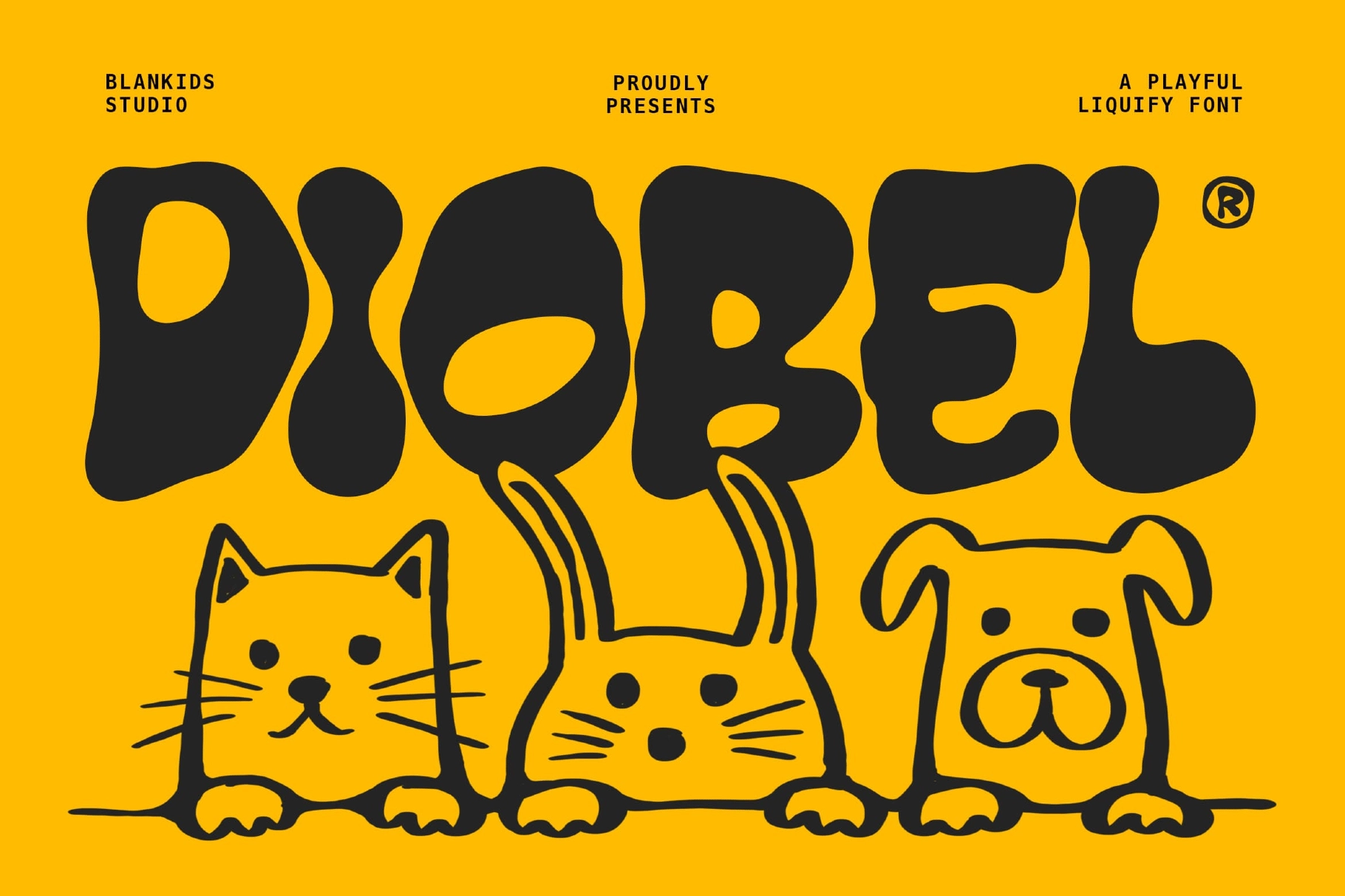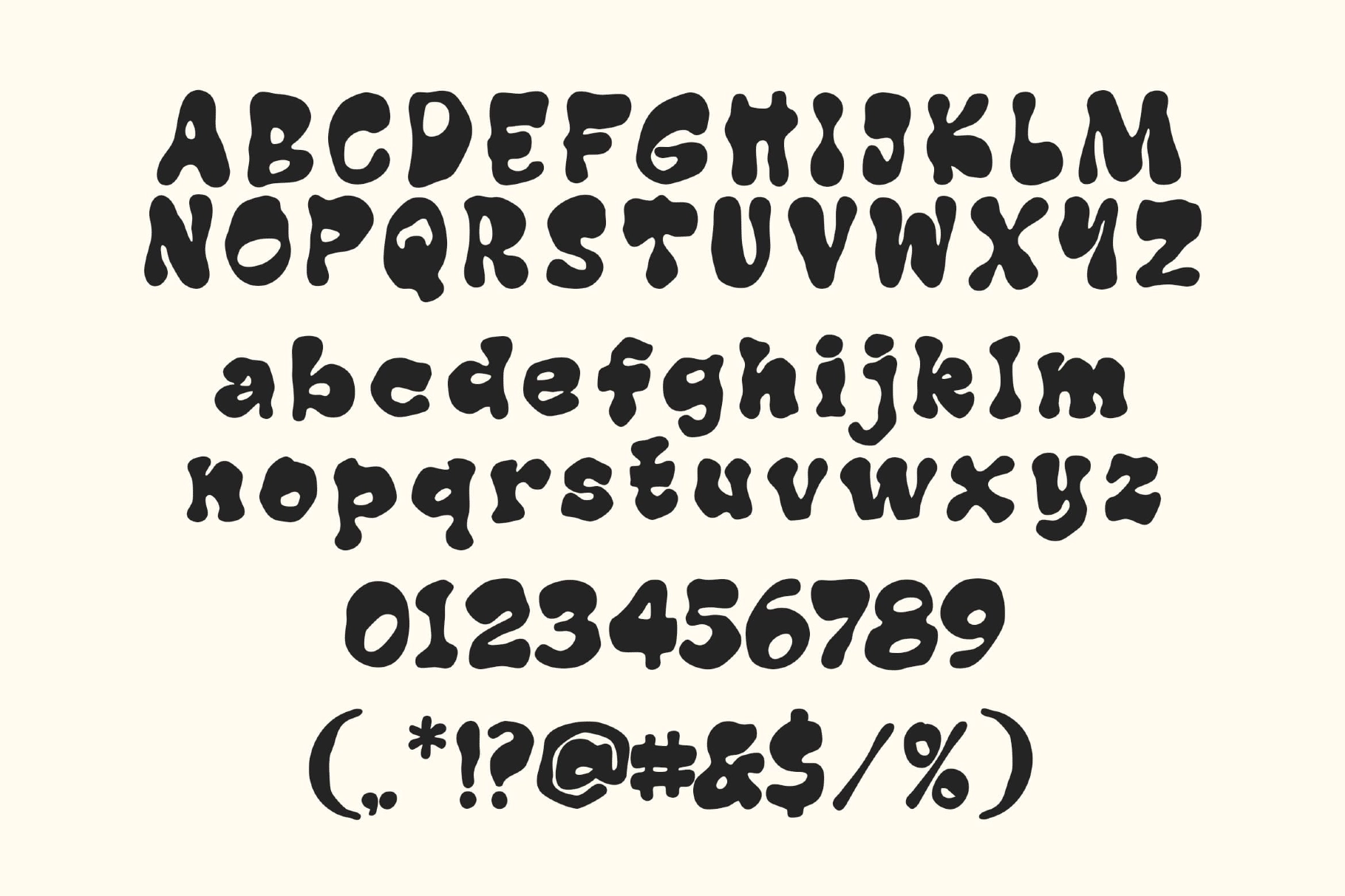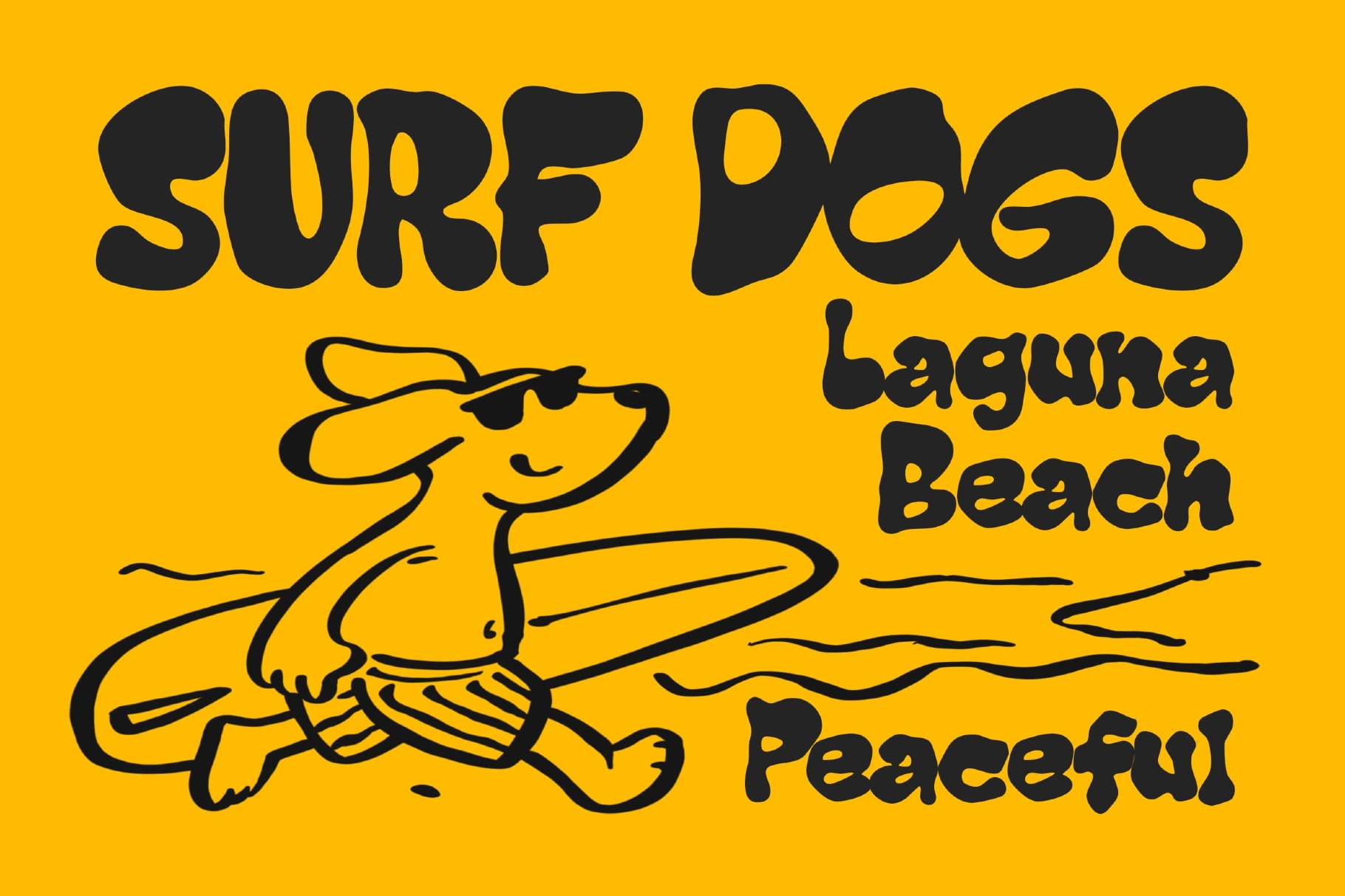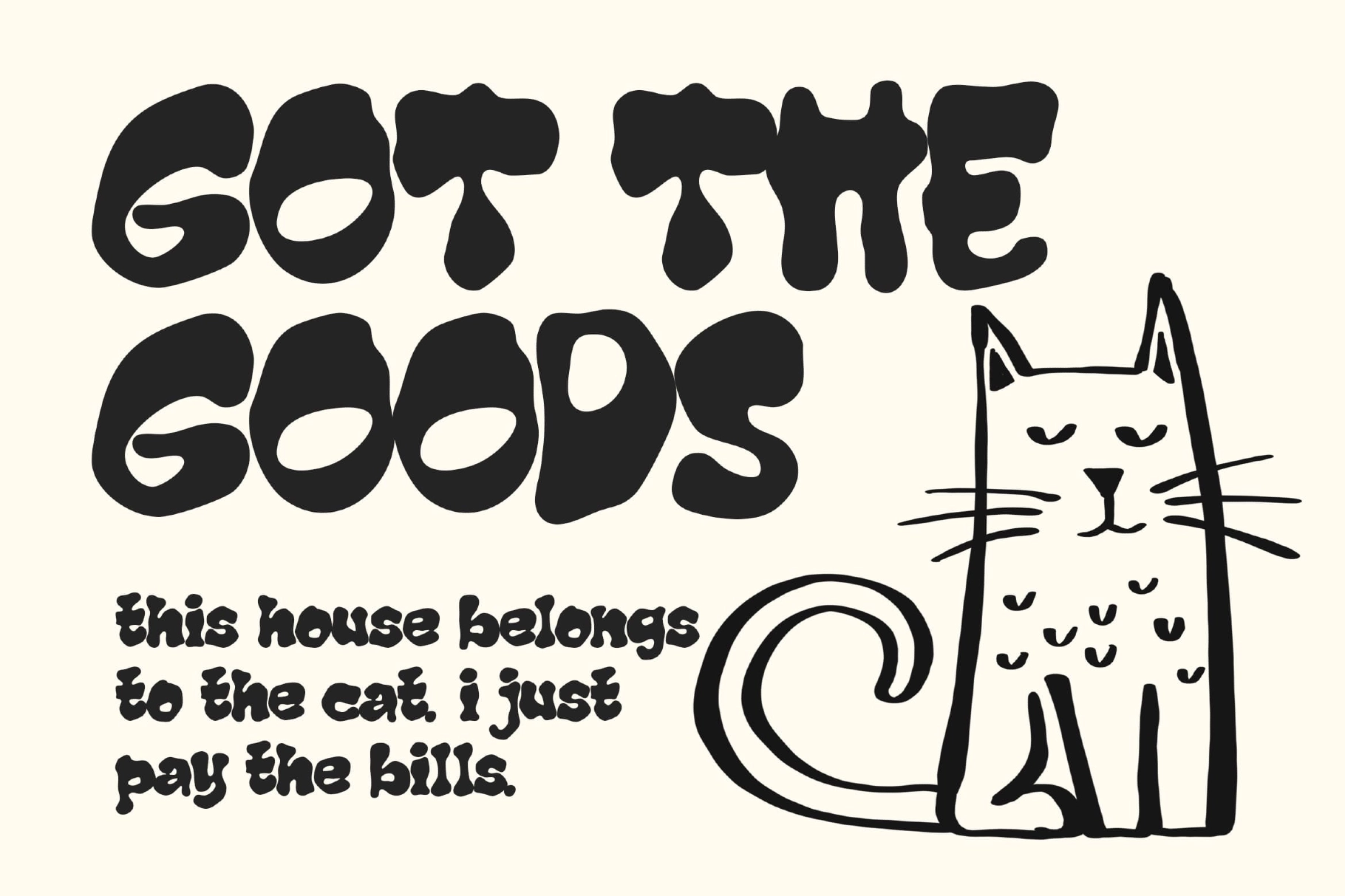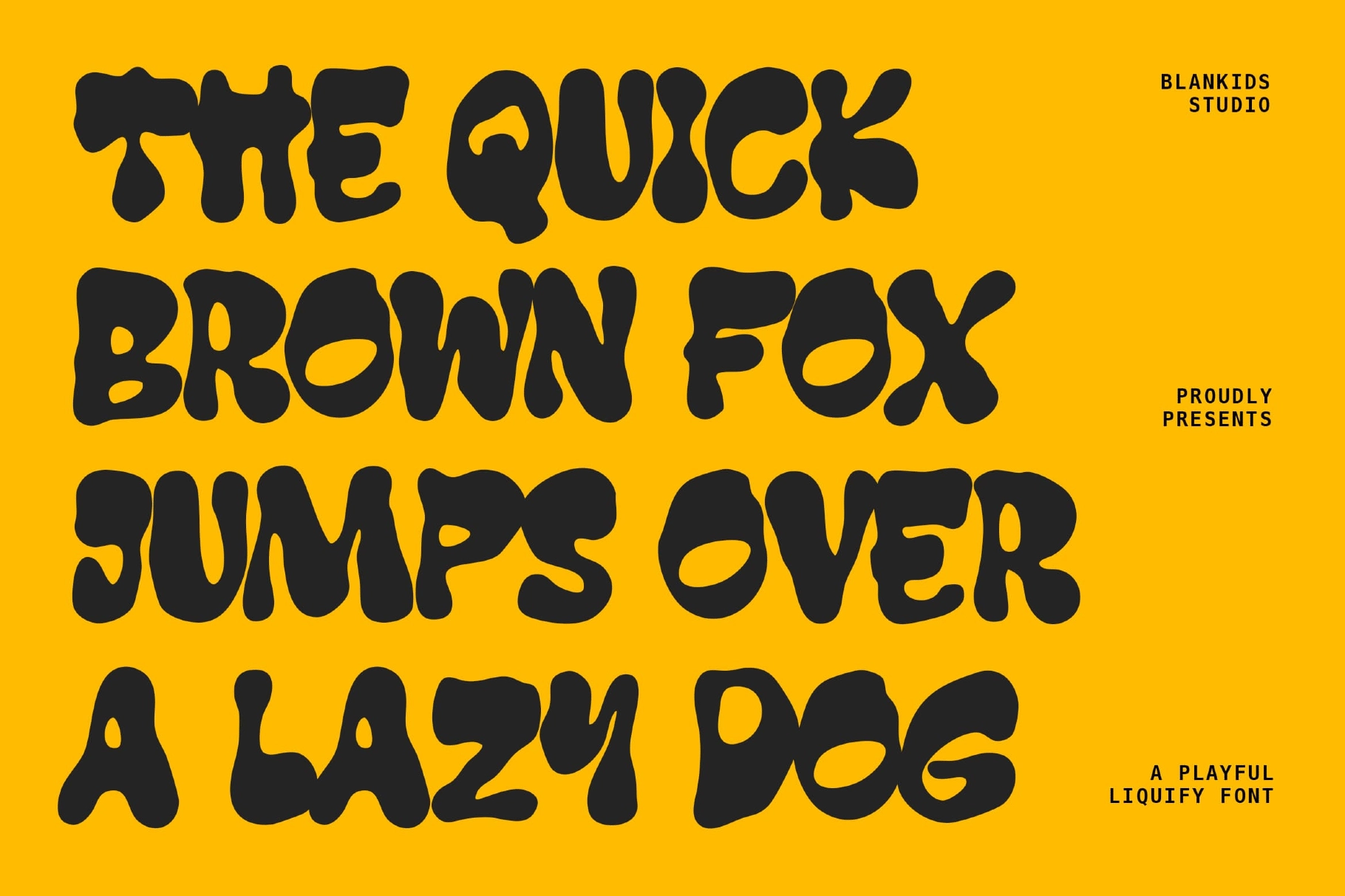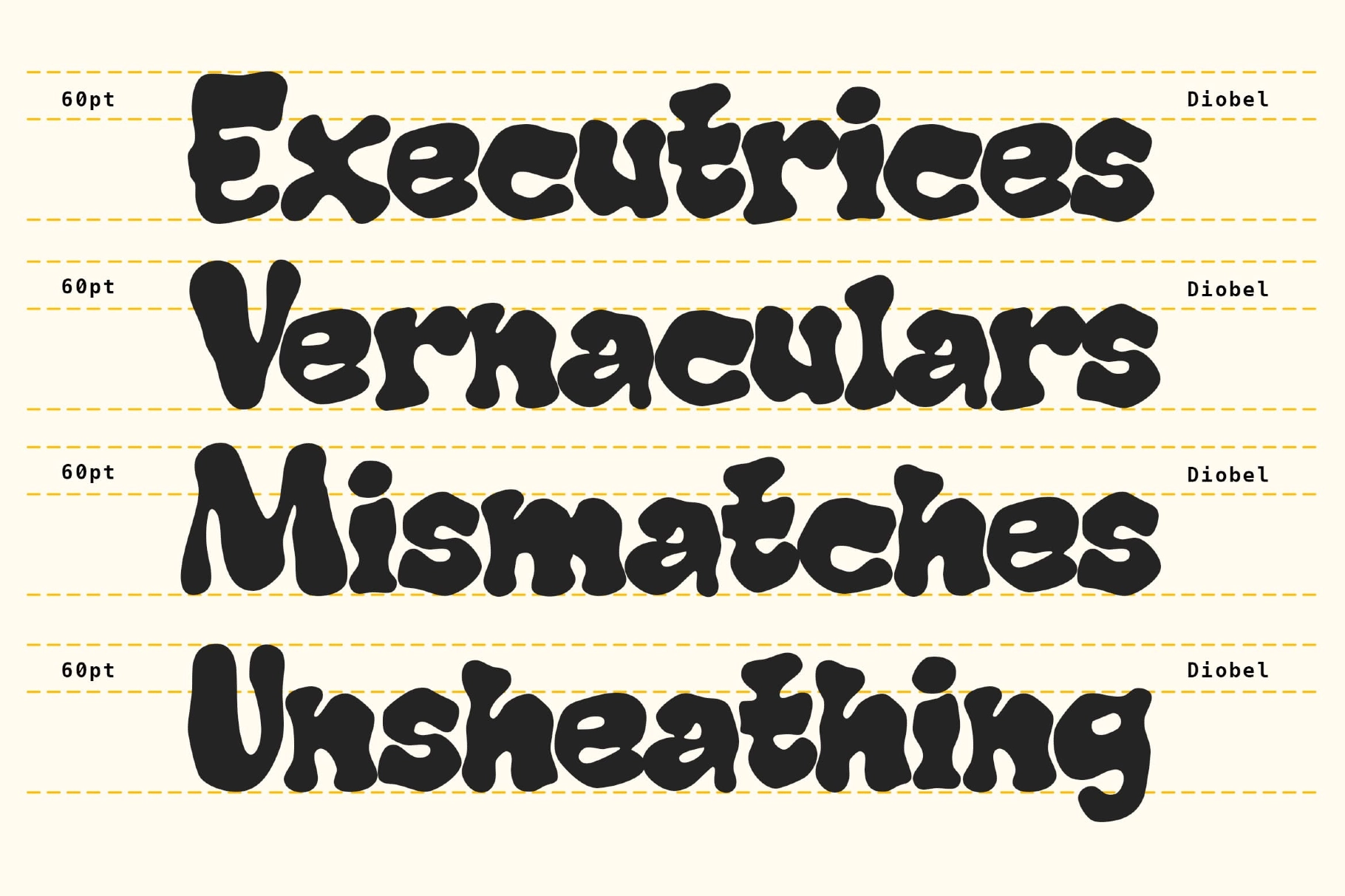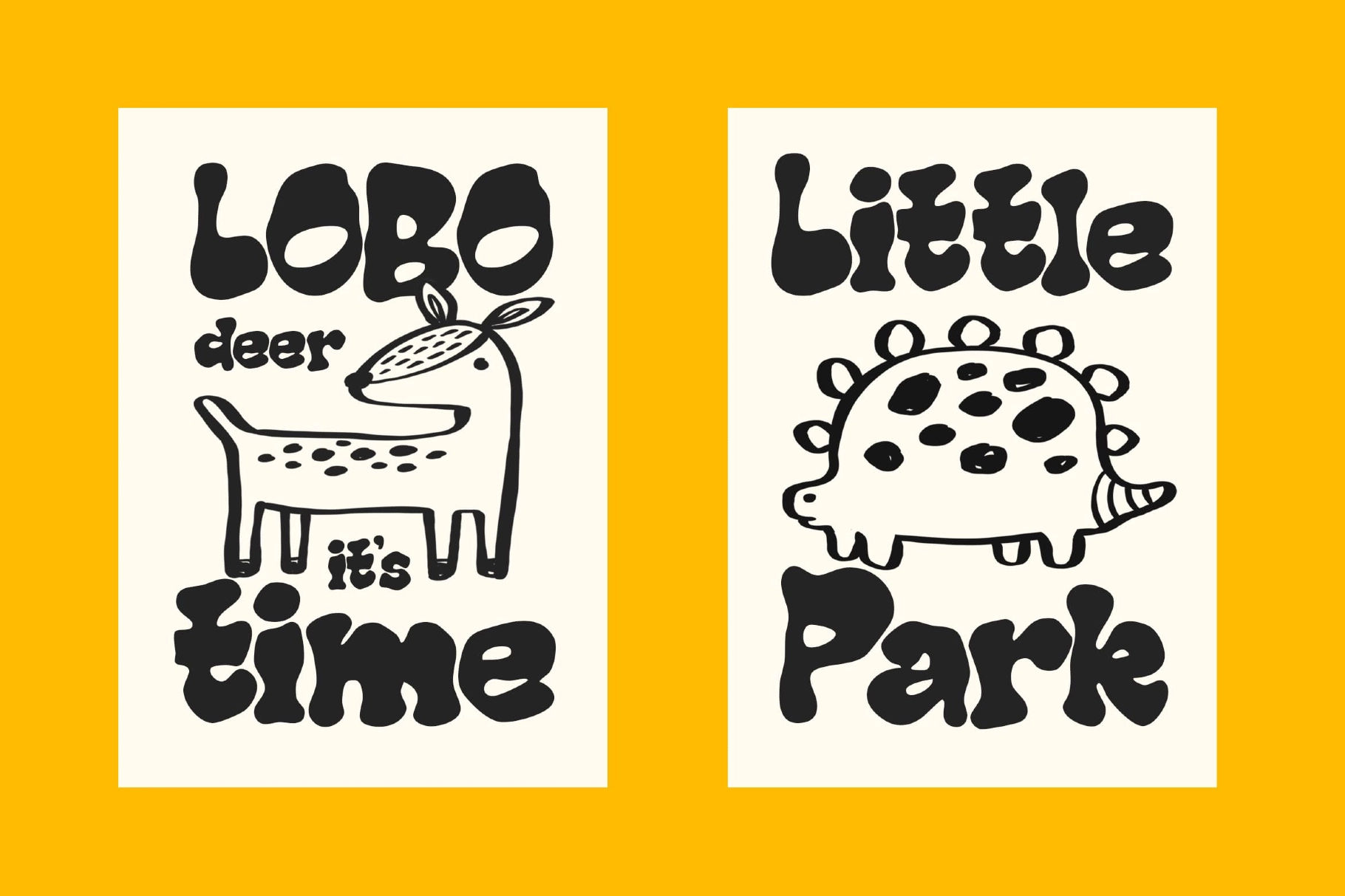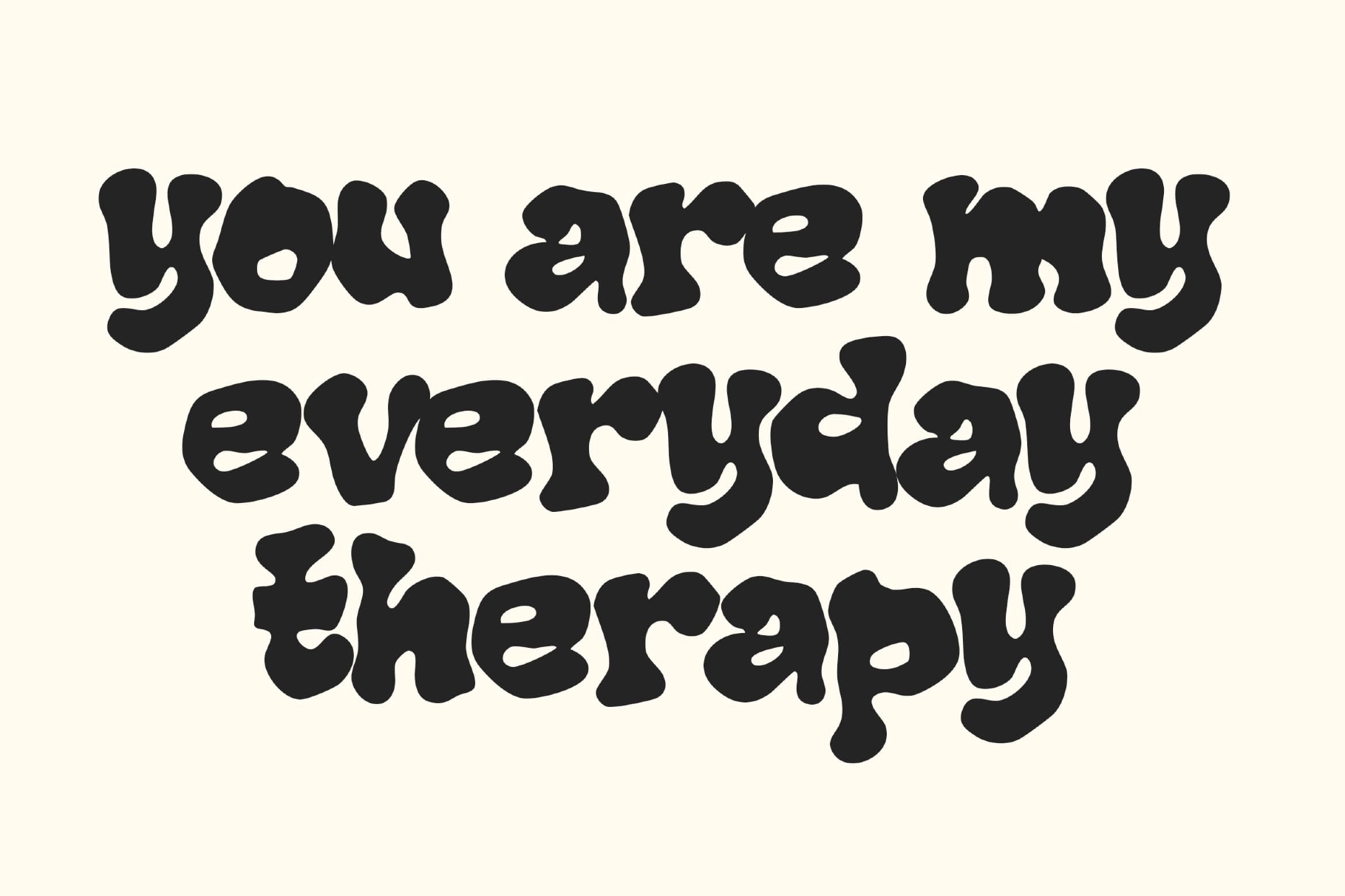
Diobel – Playful Liquify Display Font
Diobel
Diobel has a plump, melting silhouette that recalls psychedelic poster lettering, children’s picture books, and the rubbery charm of late-1960s pop graphics. It suits toy packaging, kids’ branding, playful posters, sticker sets, café menus, album covers, and social media headers where a cheerful, offbeat voice feels right.